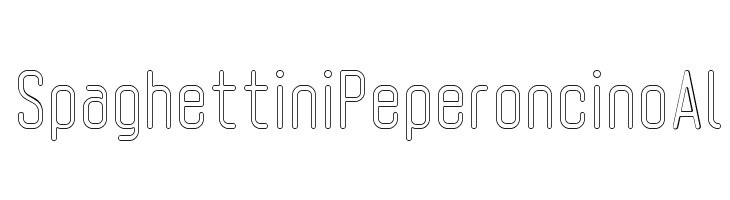
( Fonts by PutraCetol Studio )
A quirky, monster-themed decorative font with jagged edges and expressive faces.
( Fonts by PutraCetol Studio )
Distressed, jagged display font with a spooky, chaotic look.
( Fonts by PutraCetol Studio )
A bold, dripping horror-themed decorative font.
( Fonts by PutraCetol Studio )
Spiky, gothic display font with bold, dramatic shapes.
( Fonts by PutraCetol Studio )
A bold, horror-themed display font with dripping, textured letterforms.
( Fonts by PutraCetol Studio )
Bold, dripping letters with ghost motifs for a spooky, playful effect.
( Fonts by PutraCetol Studio )
Dripping, skull-embellished decorative font for horror or Halloween themes.
( Fonts by PutraCetol Studio )
A bold, dripping decorative font with a spooky, haunted appearance.
( Fonts by PutraCetol Studio )
A bold, dripping horror display font with cartoon brains and eyes.
( Fonts by PutraCetol Studio )
A bold, dripping display font ideal for horror themes.
( Fonts by PutraCetol Studio )
A bold, horror-themed display font with dripping and mechanical motifs.
( Fonts by Aestherica Studio )
Expressive handwritten script with tall, narrow forms and variable strokes.
Bold decorative font with festive star patterns and strong outlines.
Festive, bold display font with Santa-themed decorations.
Festive, bold display font with snowflake and star decorations.
( Fonts by Vickie Martinez )
( Fonts by Pentagonistudio )
( Fonts by Excellent Ritma Florendia )